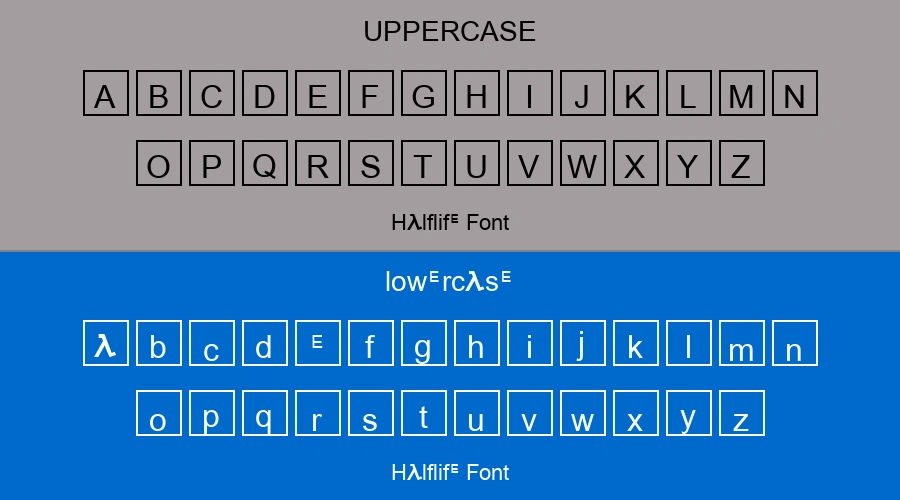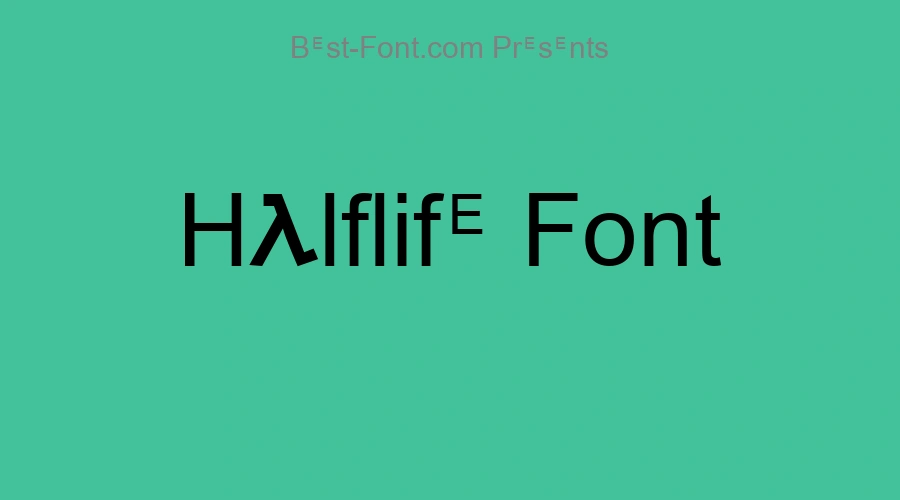
About Halflife Font
Halflife Font represents a sophisticated approach to type design, balancing original character with excellent legibility. Perfect for corporate reports, this font family showcases impressive originality and functional utility throughout its character set. Designers appreciate its versatility and reliability.
Designers will appreciate nuanced touches including subtle details and decorative sets, adding sophistication to any project. These features become apparent in instruction steps, where versatility matters most. The careful treatment of ear formation and cultural references ensures optimal performance.